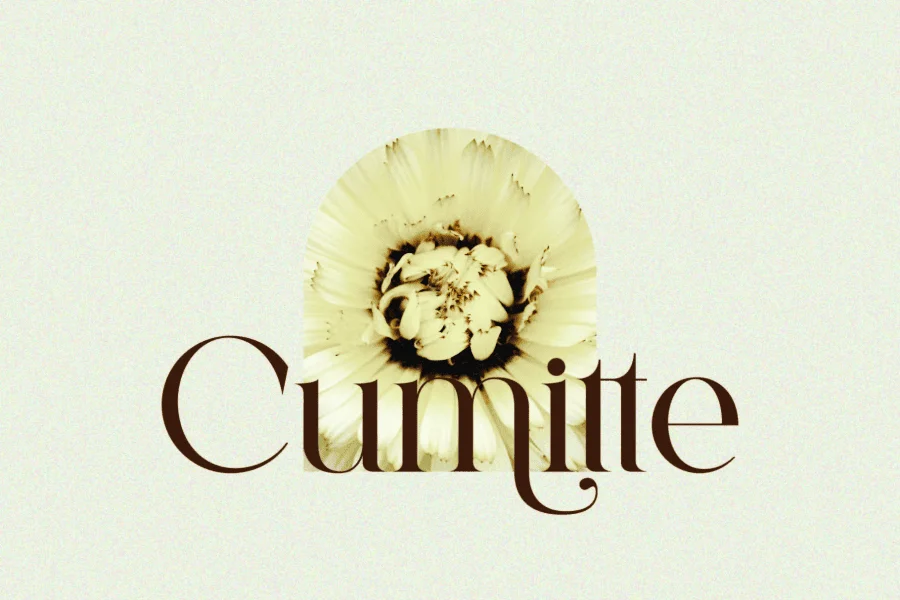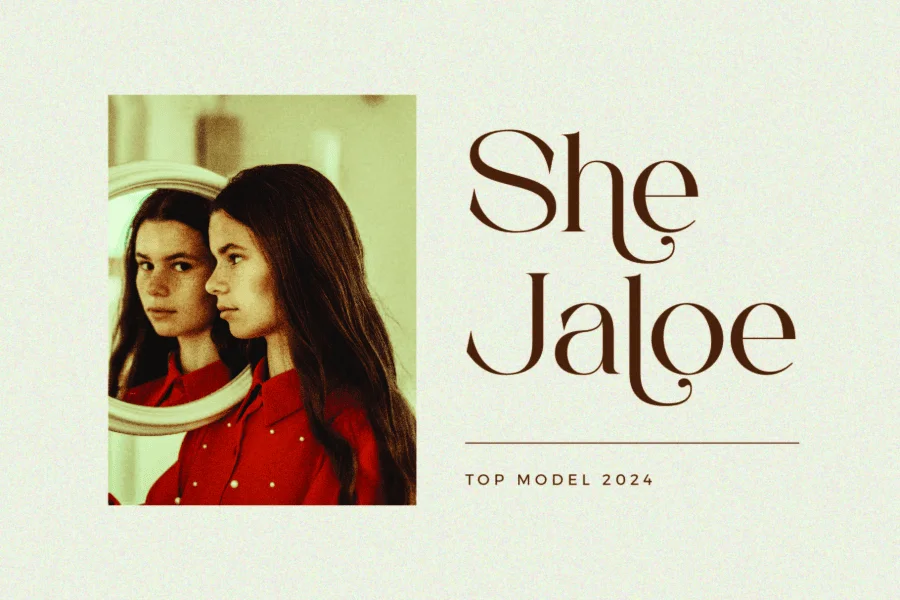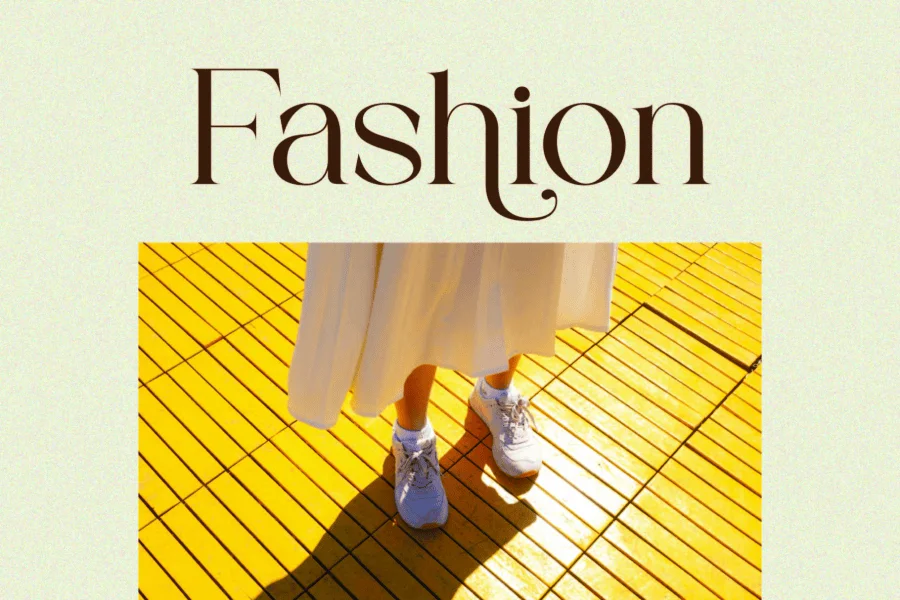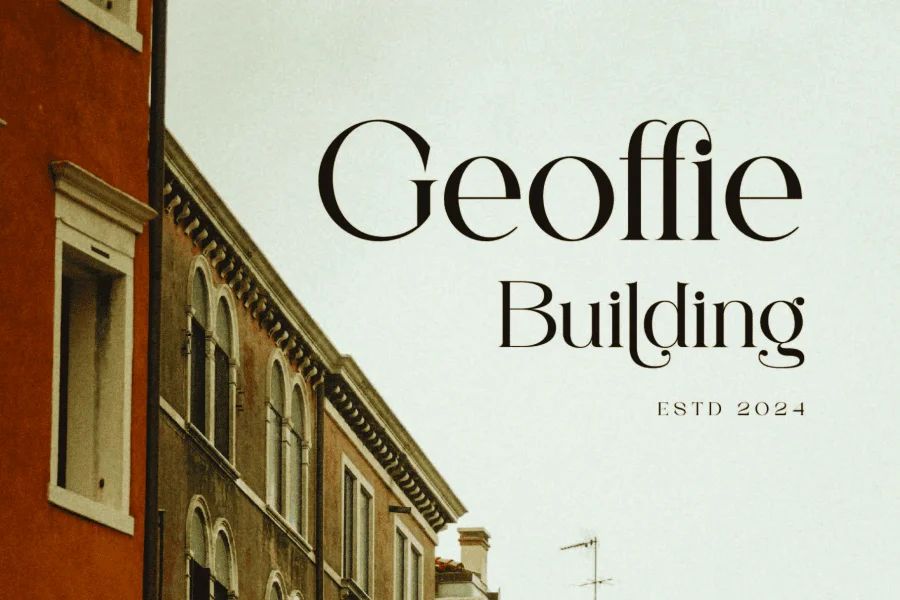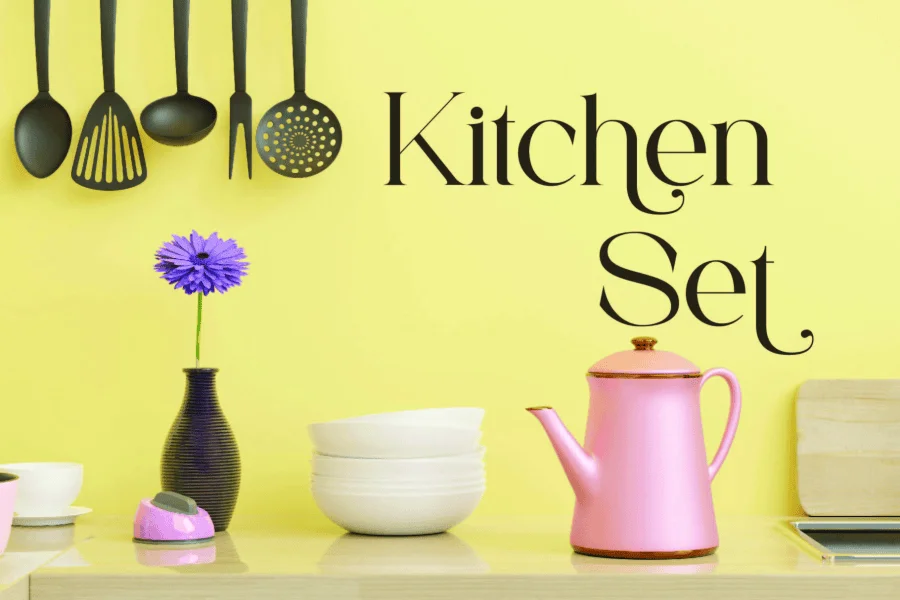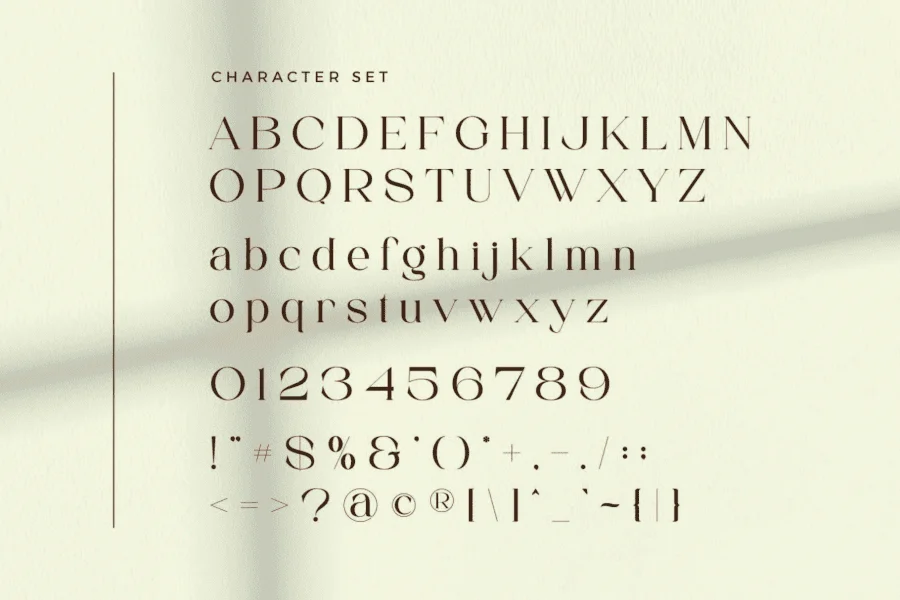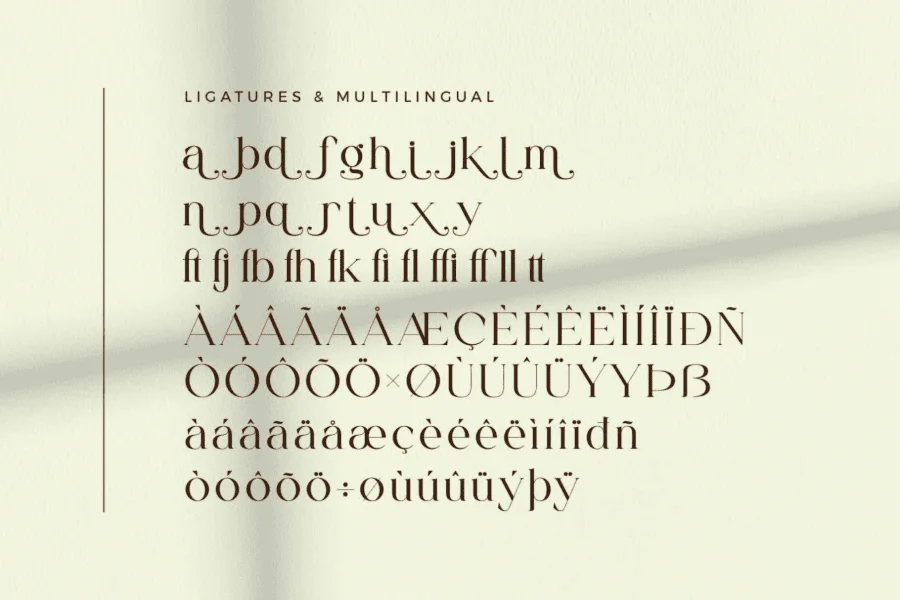
Emotte is an elegant, high-contrast serif typeface that balances classic structure with fluid, contemporary details. Its design is characterized by transitions between robust vertical stems and thin, delicate horizontal strokes. The letterforms feature sharp, refined serifs alongside flowing, expressive ligatures, combining rigid verticality with soft, calligraphic flourishes to give the typeface a sophisticated, editorial rhythm.
With its refined aesthetic and expressive ligatures, this typeface is perfectly suited for fashion editorial mastheads, lifestyle branding, and luxury packaging. It excels in large display settings where its intricate details and high-contrast lines can be fully appreciated, such as in cosmetics logos, lifestyle magazine layouts, and upscale signage.